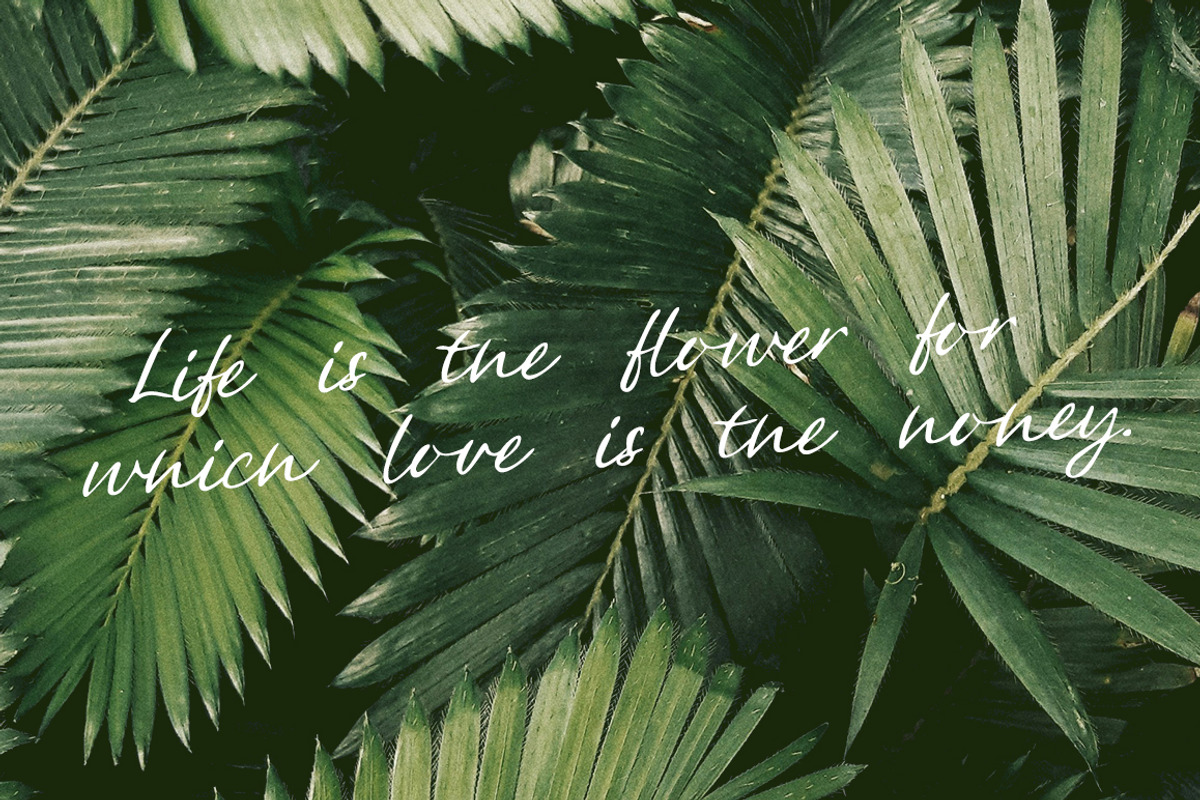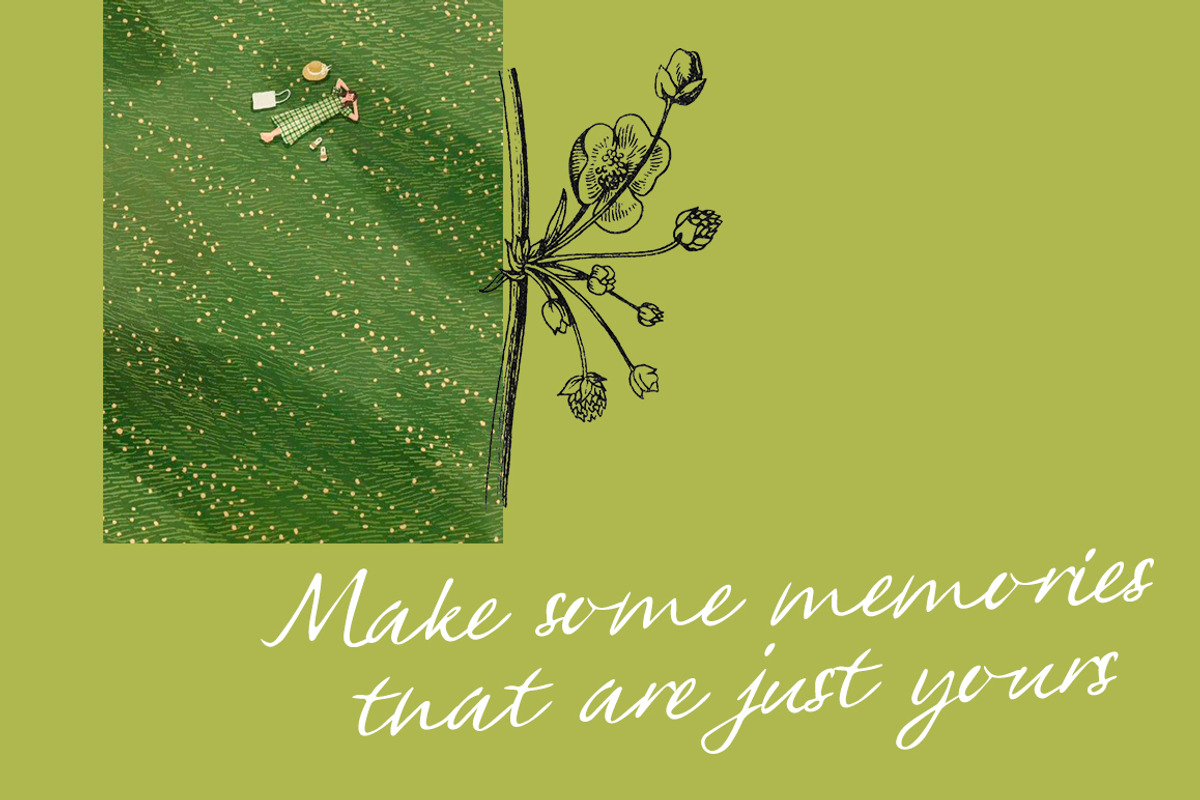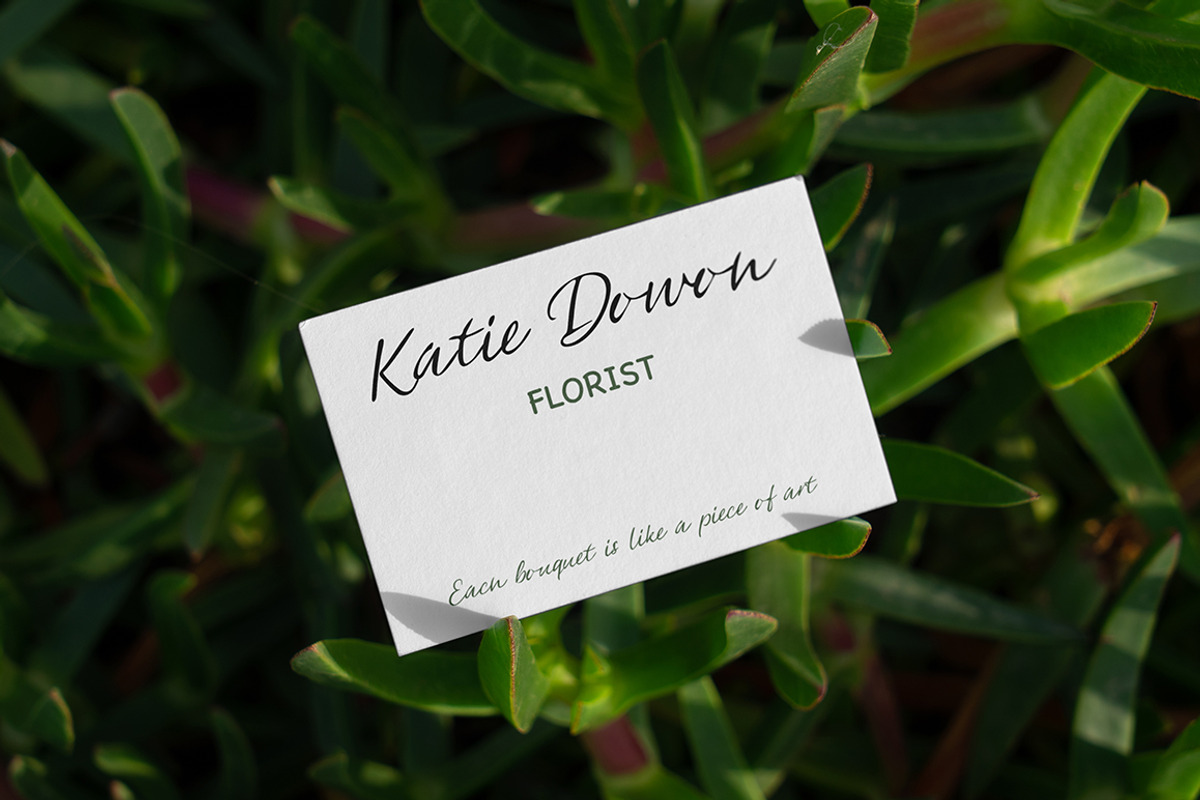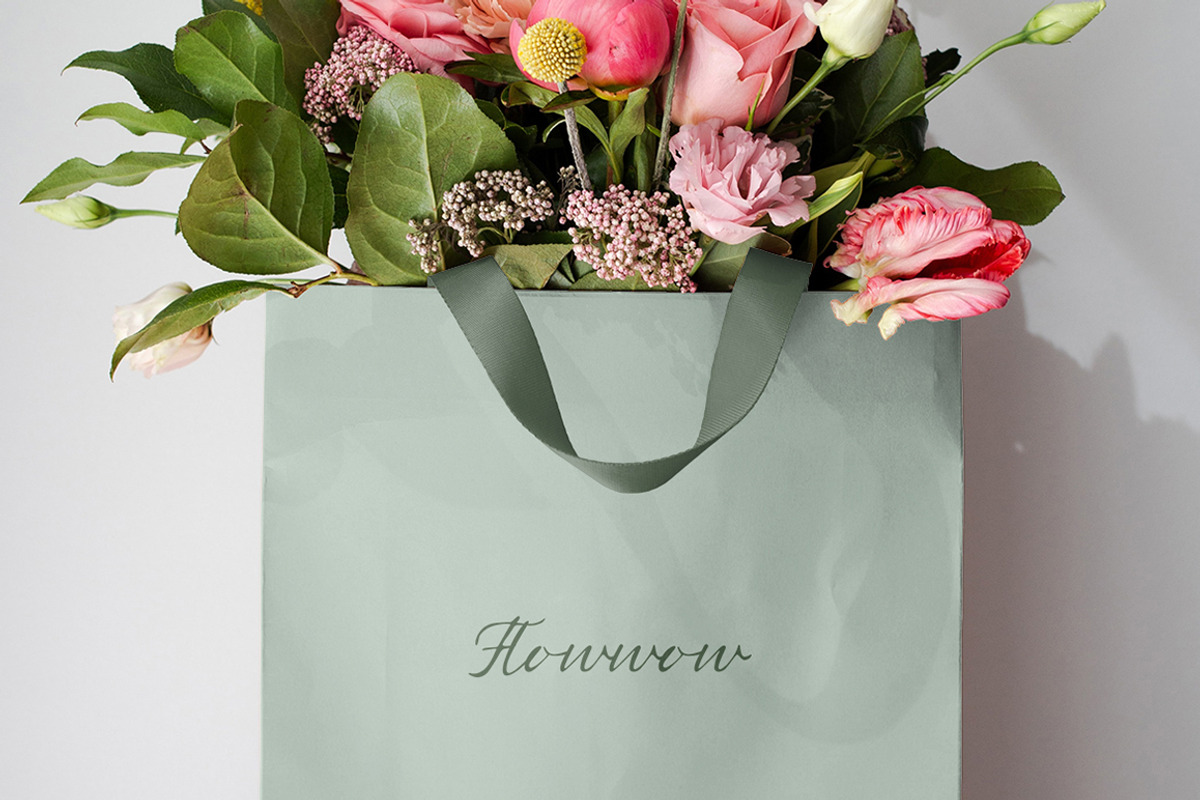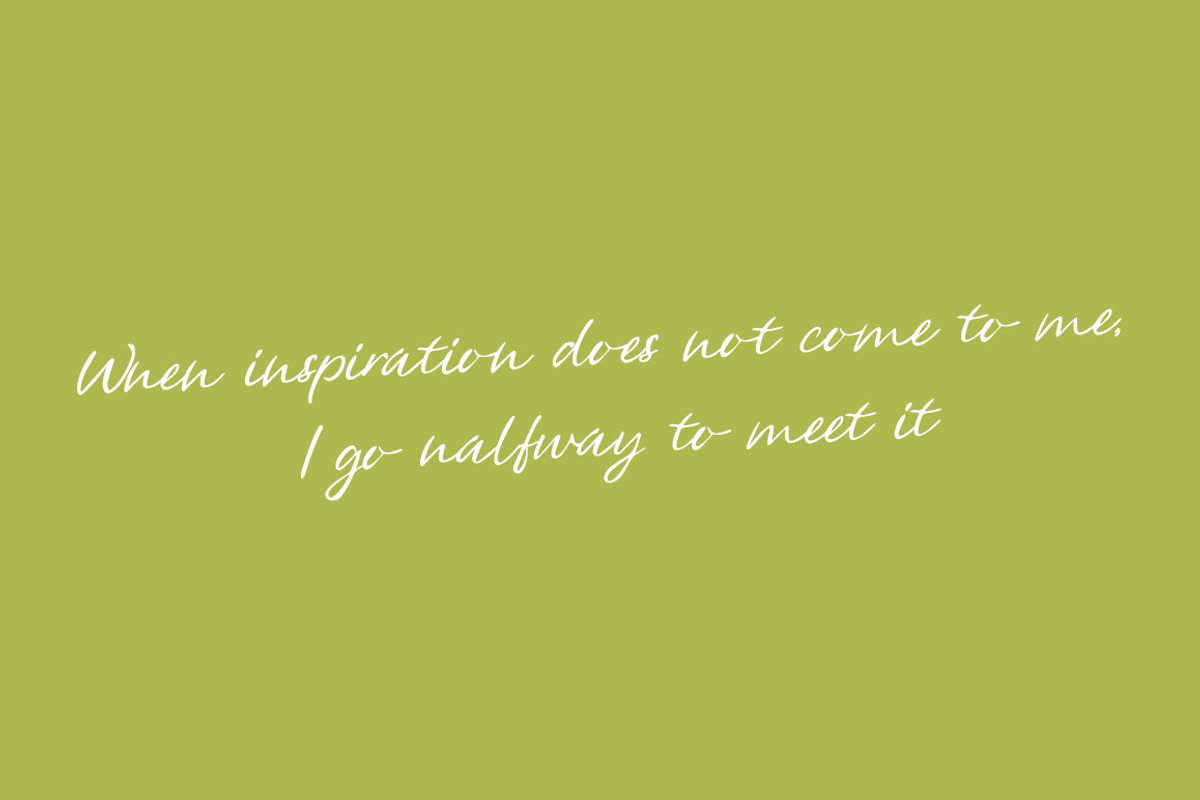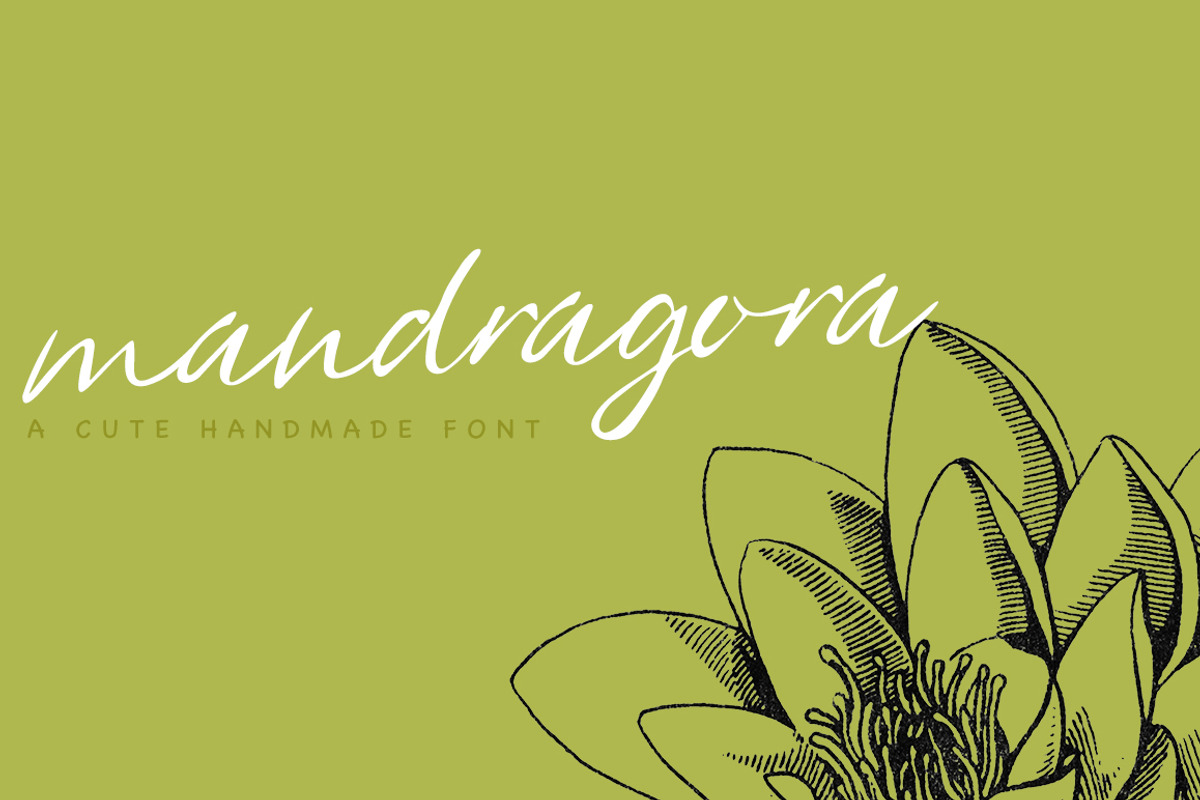
Mandragora
Mandragora is sweet and playful, but also Crafty. This versatile script font has a wide range of applications ranging from greeting cards to kids’ crafts, and is guaranteed to add a sweet touch to your next design.